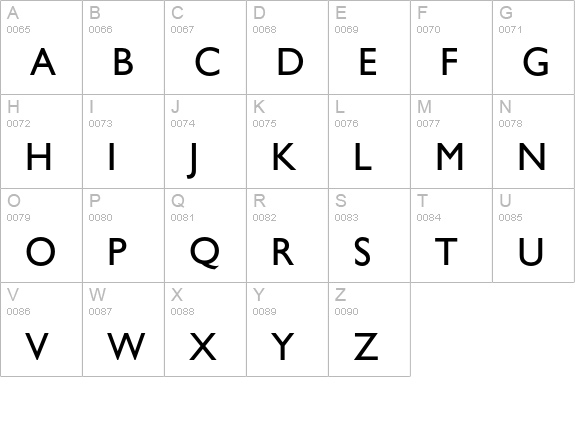
Giltus T Medium is a balanced, medium-weight variant in the Giltus typeface family \xE2\x80\x94 well suited to sub-headlines, navigation, and balanced editorial work.
Giltus T Medium font is a versatile and elegant typeface that is perfect for a wide range of design projects. With its balanced proportions and clean lines, this font exudes a sense of sophistication and modernity. The medium weight of the font makes it ideal for both headings and body text, adding a touch of professionalism to any design. What sets Giltus T Medium font apart is that it is available for free download at FontsMarket.com. This means that you can easily access this high-quality font without any cost, making it a valuable addition to your font library. Whether you're working on branding, editorial design, or web design, Giltus T Medium font is sure to elevate your projects with its timeless style and readability.